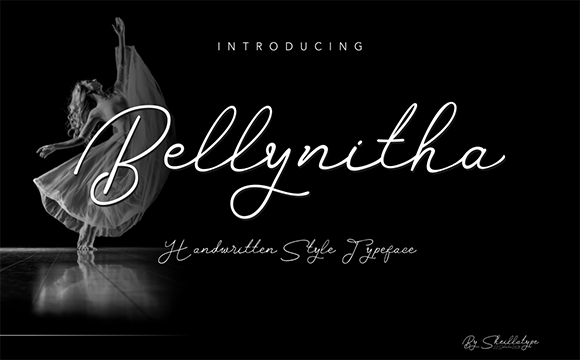
Bellynitha Font
Behold, the Bellynitha font family - a symphony of elegance and grace, crafted to capture the essence of a ballet dancer's ethereal poise. Its sweeping curves and delicate lines will infuse your creative projects with an aura of sophistication and charm.
With Bellynitha, you can effortlessly elevate your designs to new heights of beauty and artistry. Whether you're a graphic designer, a passionate crafter, or simply someone who appreciates the finer things in life, this font family is your perfect companion.
Step into a world where typography meets art, where every letter dances across the page with effortless grace. Bellynitha is more than just a font; it's an experience that will transform your creative journey.
Dive into the world of Bellynitha and discover a treasure trove of possibilities. Let your imagination soar as you explore the endless applications of this versatile script font. Create breathtaking signatures that exude elegance, design logos that radiate sophistication, and craft photography that captures the essence of timeless beauty.
Bellynitha is your perfect partner for creating stunning wedding invitations that will leave a lasting impression. Its delicate curves and flowing lines will add a touch of romance and enchantment to your special day.
Explore the realm of beauty products and unleash your creativity. Bellynitha's soft and calming aura will perfectly complement your designs, whether it's a luxurious skincare line or a vibrant makeup palette.
The possibilities are boundless with Bellynitha. Its versatility knows no limits, making it the ideal choice for a wide array of projects. From social media posts that captivate your audience to marketing materials that leave a lasting impression, Bellynitha will elevate your creations to new heights.
Join the ranks of discerning designers and creative professionals who have embraced the beauty of Bellynitha. Let its graceful strokes guide you on a journey of artistic exploration, where every project becomes a masterpiece.